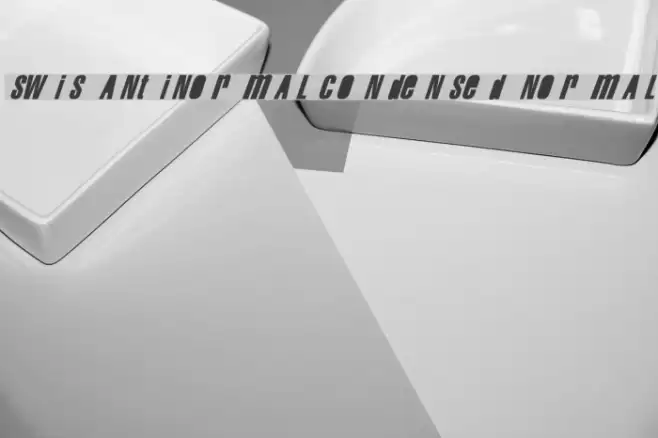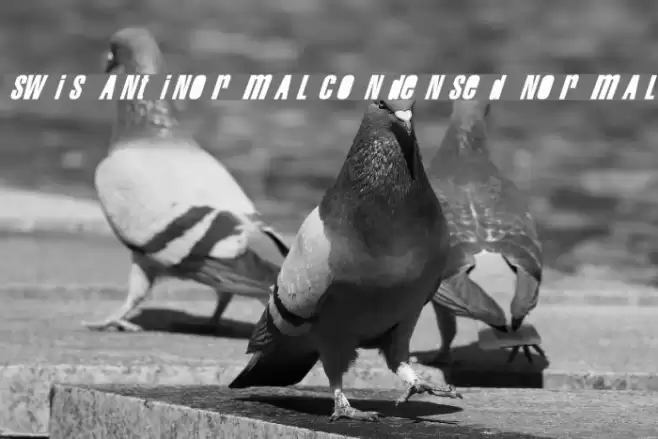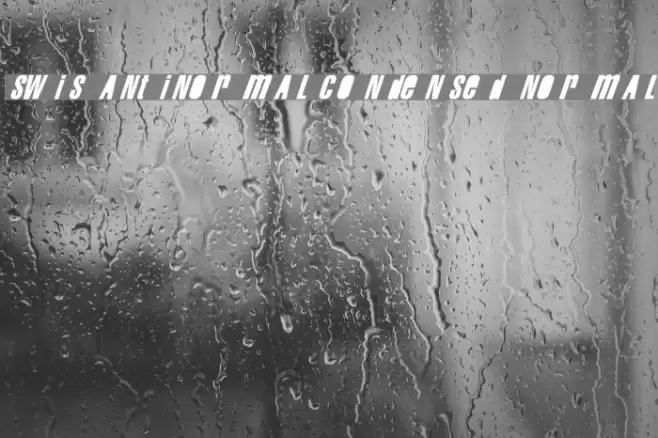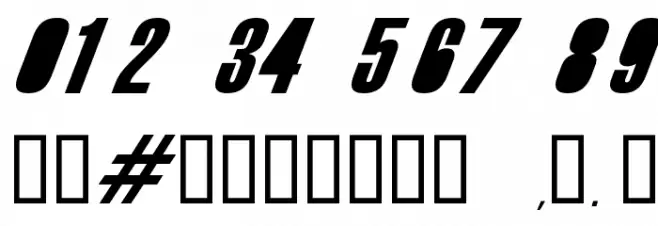
Swis AntiNormal Condensed Normal Font
Swis AntiNormal Condensed Normal Description
This font features a bold and condensed style with a distinct slant, giving it a dynamic and energetic appearance. The characters are tightly spaced, enhancing the compact look. The uppercase letters are tall and commanding, while the lowercase letters maintain a consistent height, providing a uniform appearance. The numbers are equally bold and follow the same condensed style, ensuring readability. Special characters are designed to match the overall aesthetic, making this font suitable for impactful and modern designs.
A bold, condensed, and slanted font with tight spacing and a dynamic style from Crazy fonts.
- Proposed Projects: Ideal for headlines, posters, branding, and any project requiring a strong visual impact.
- Character Spacing: Tight